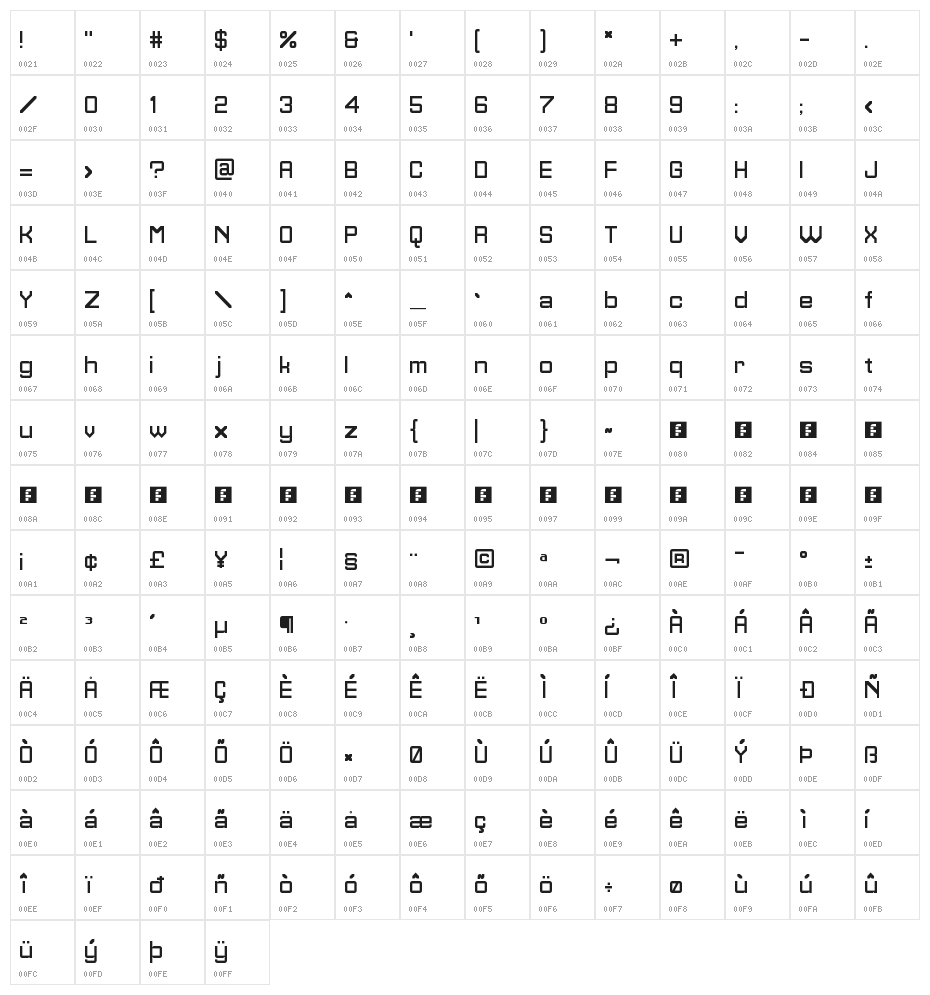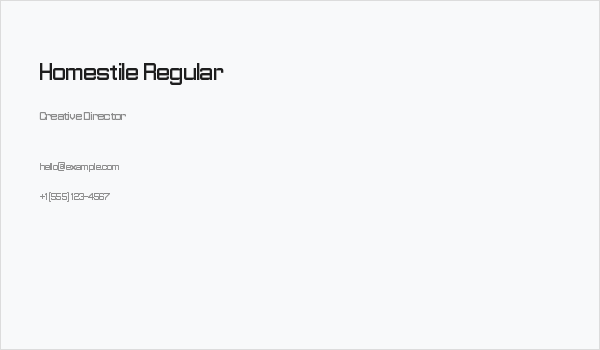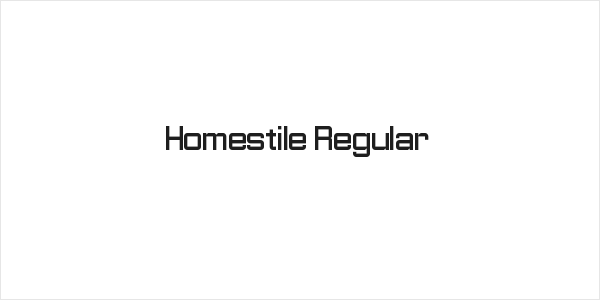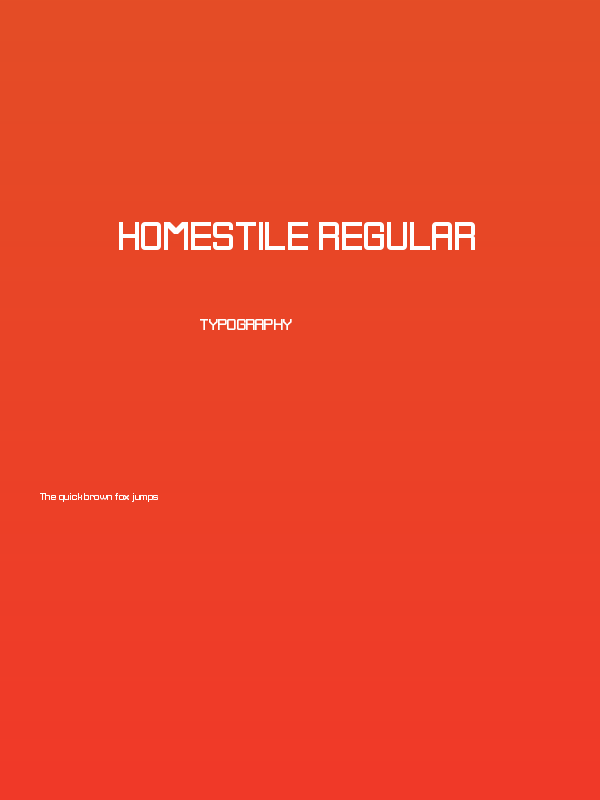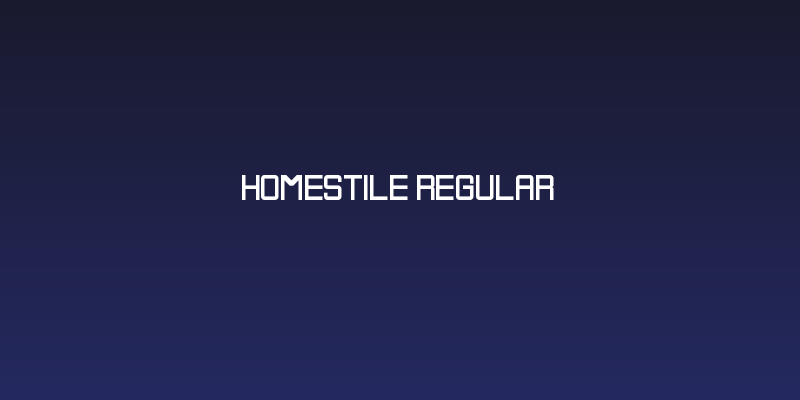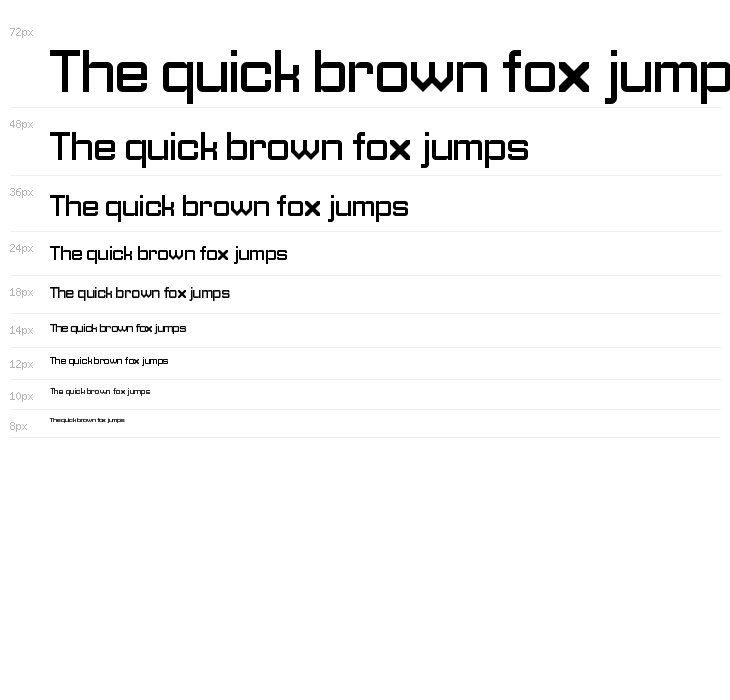
Homestile Regular Font
✎ Futuristic
| Anwendungsfall | Headlines, Logos, Digital interfaces |
| Vorgeschlagene Projekte | Ideal for technology branding, digital interfaces, modern advertising, and editorial design. |